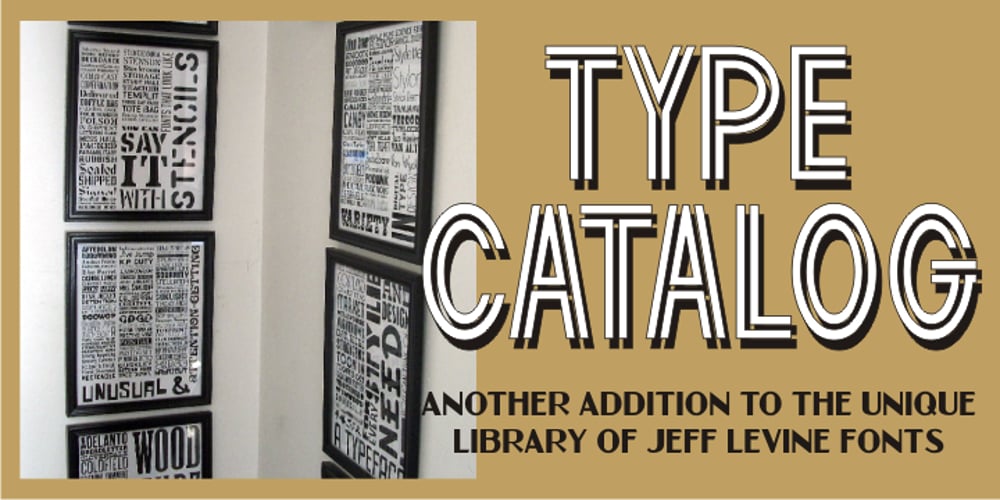
Type Catalog JNL
Type Catalog JNL font
Type Catalog JNL Font Family was designed by Jeff Levine and published by Jeff Levine. Type Catalog JNL contains 1 styles and family package options. Type Catalog JNL was originally a design drawn by Jeff Levine around 2006. Type Catalog JNL has a distinctively retro look for many applications.